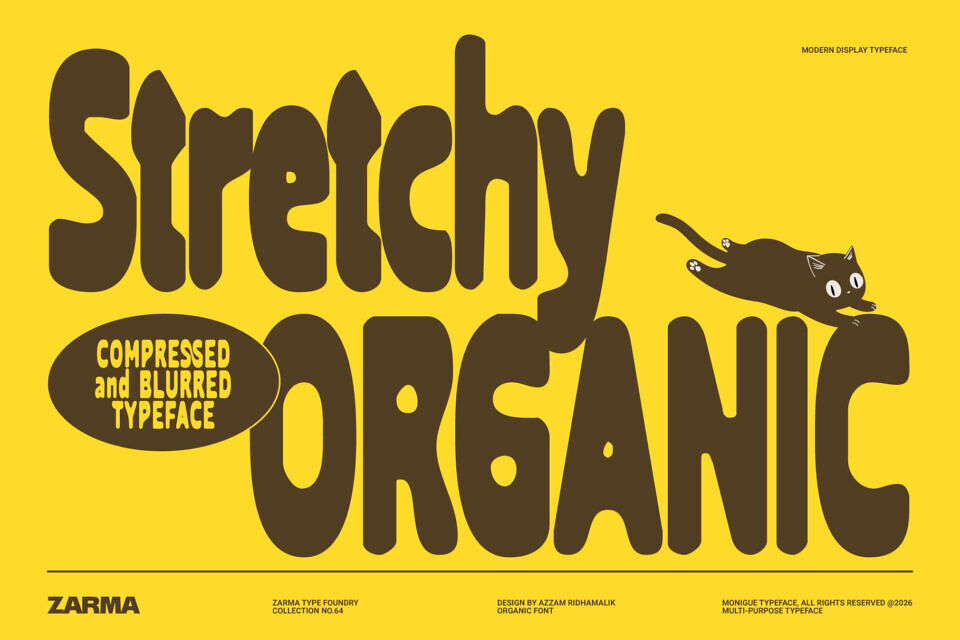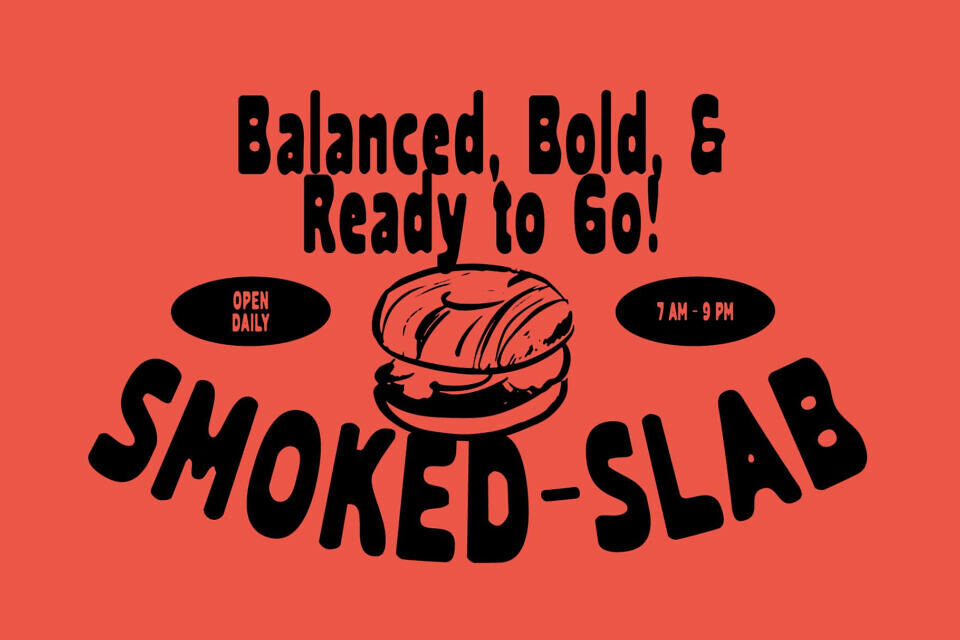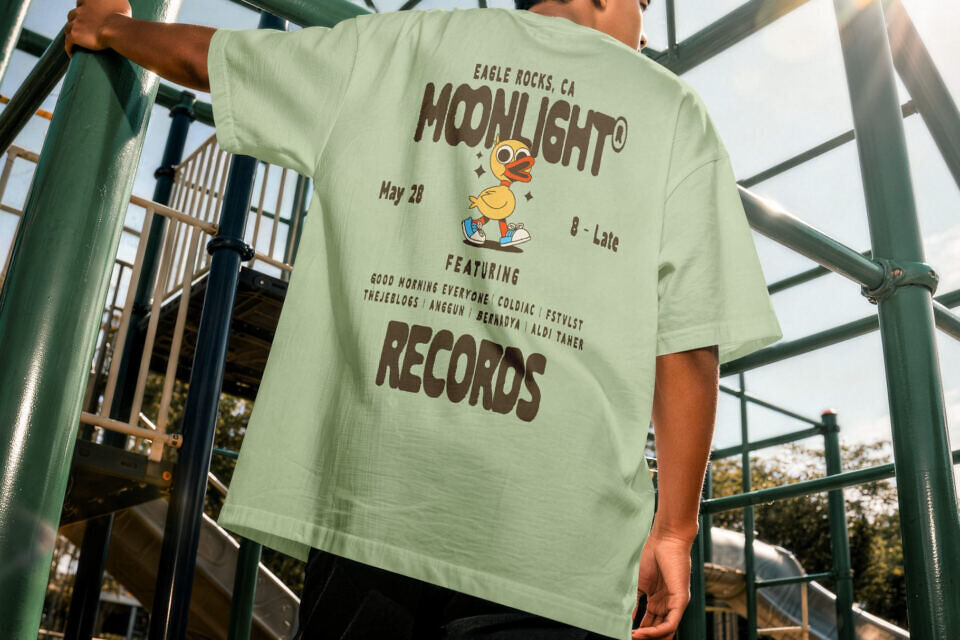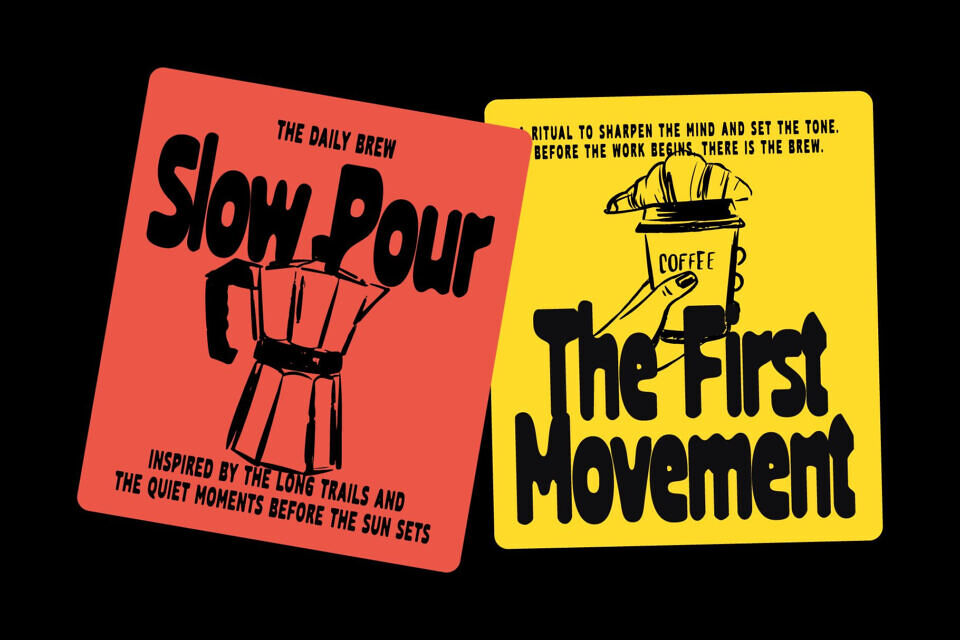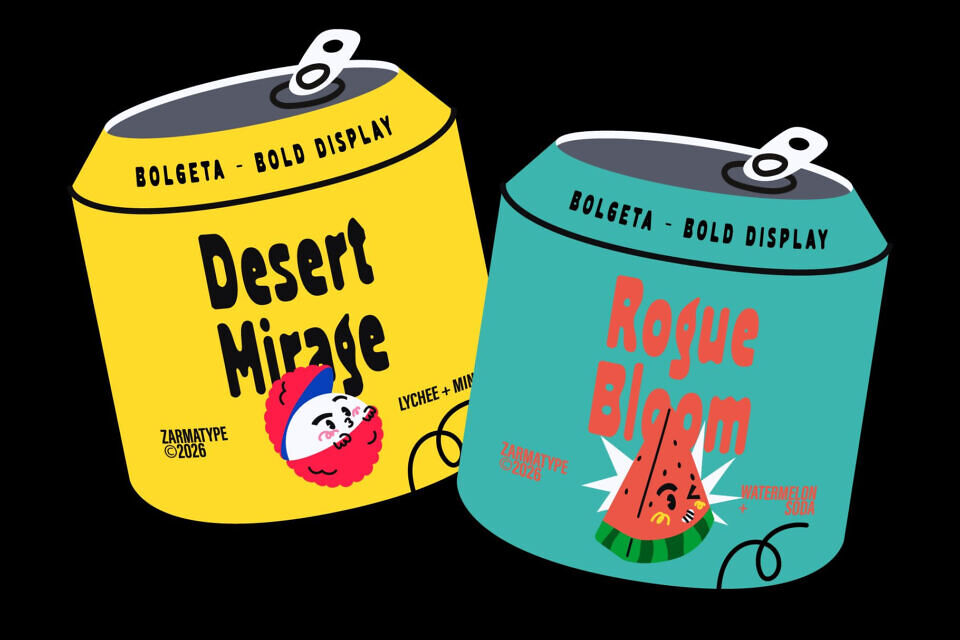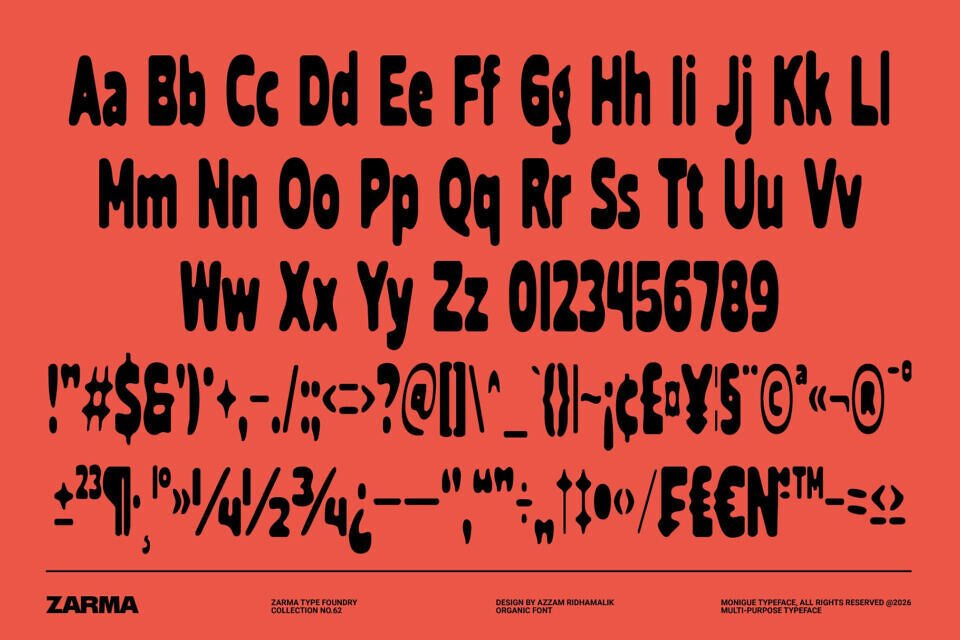
Stretchy Organic Font
Introducing Stretchy Organic, a bold display font that embodies the spirit of hand-stamped letterpress and street posters. With its rough, compressed texture and organic imperfections, it adds a raw, tactile feel to any design.
Unlike other fonts, it retains its character at any size, making it perfect for projects that require a bold, authentic look, such as streetwear branding, packaging, and editorial headlines.
Designed by: Zarma Type Foundry